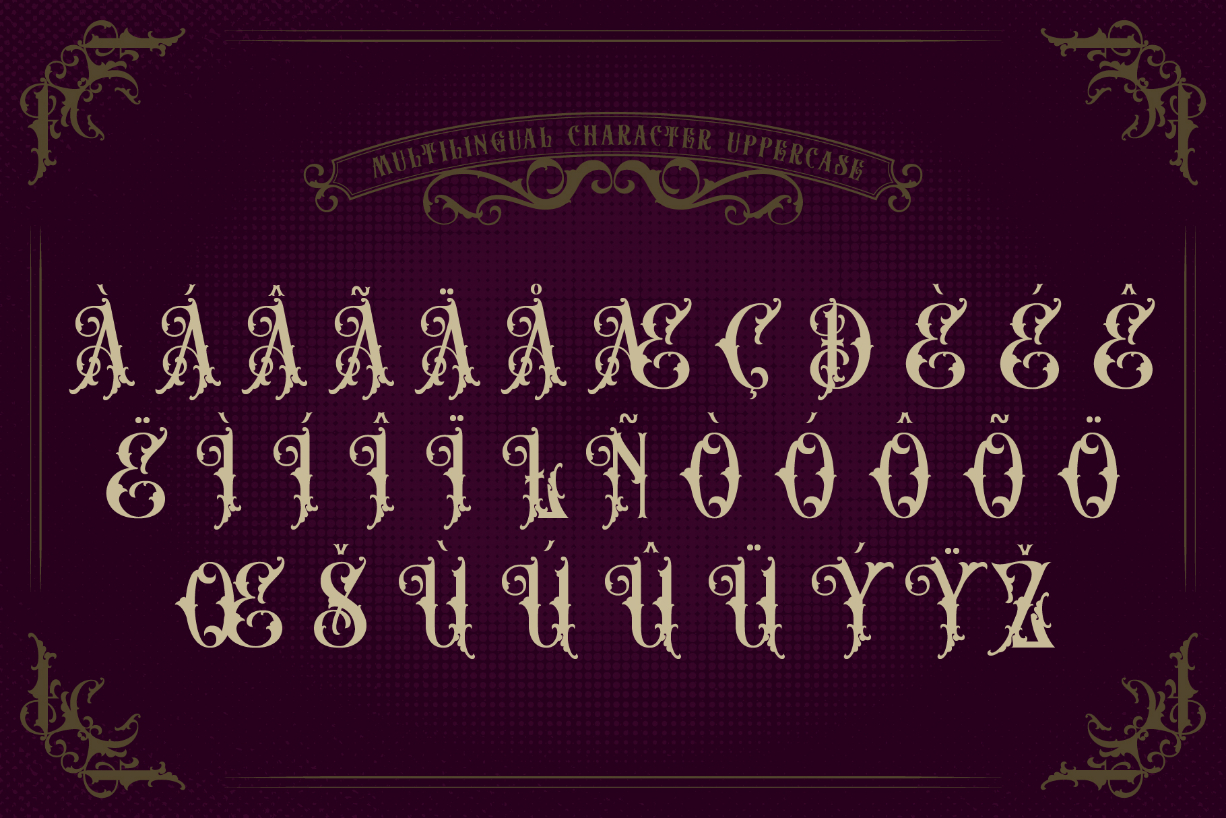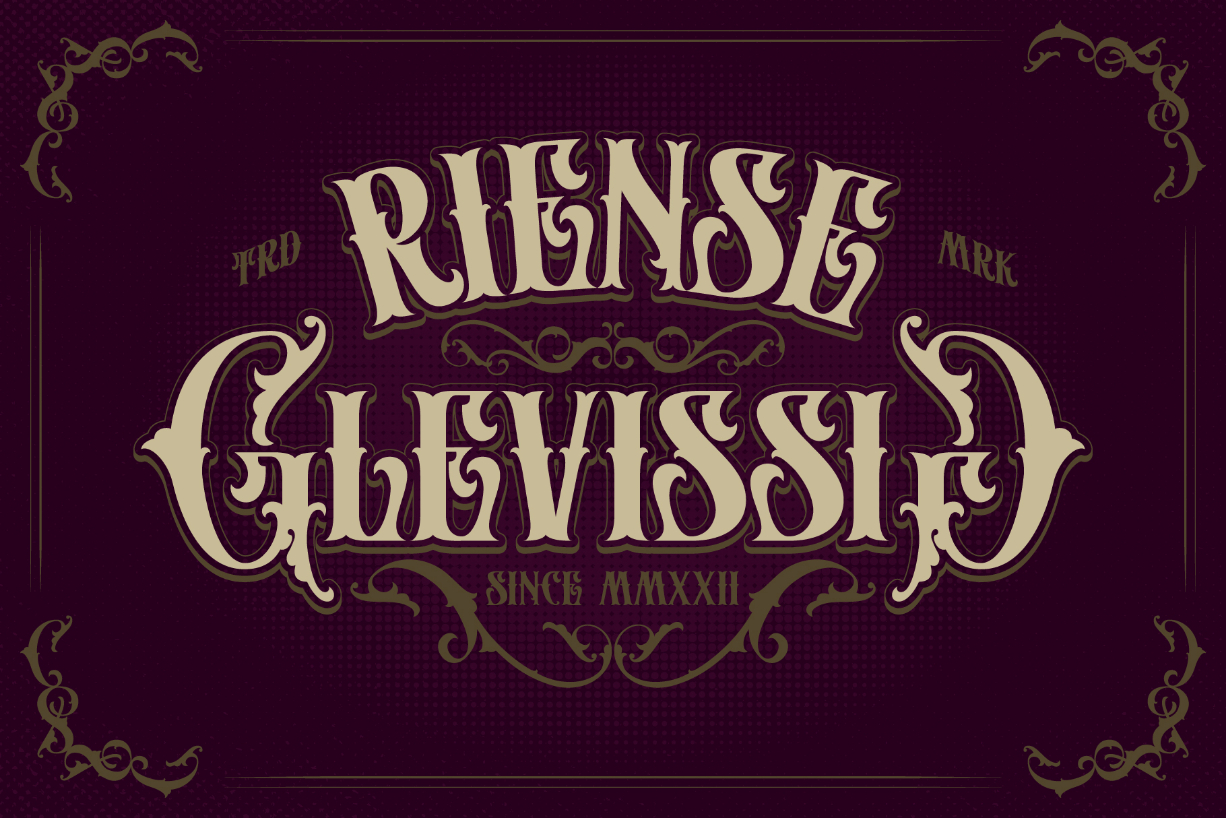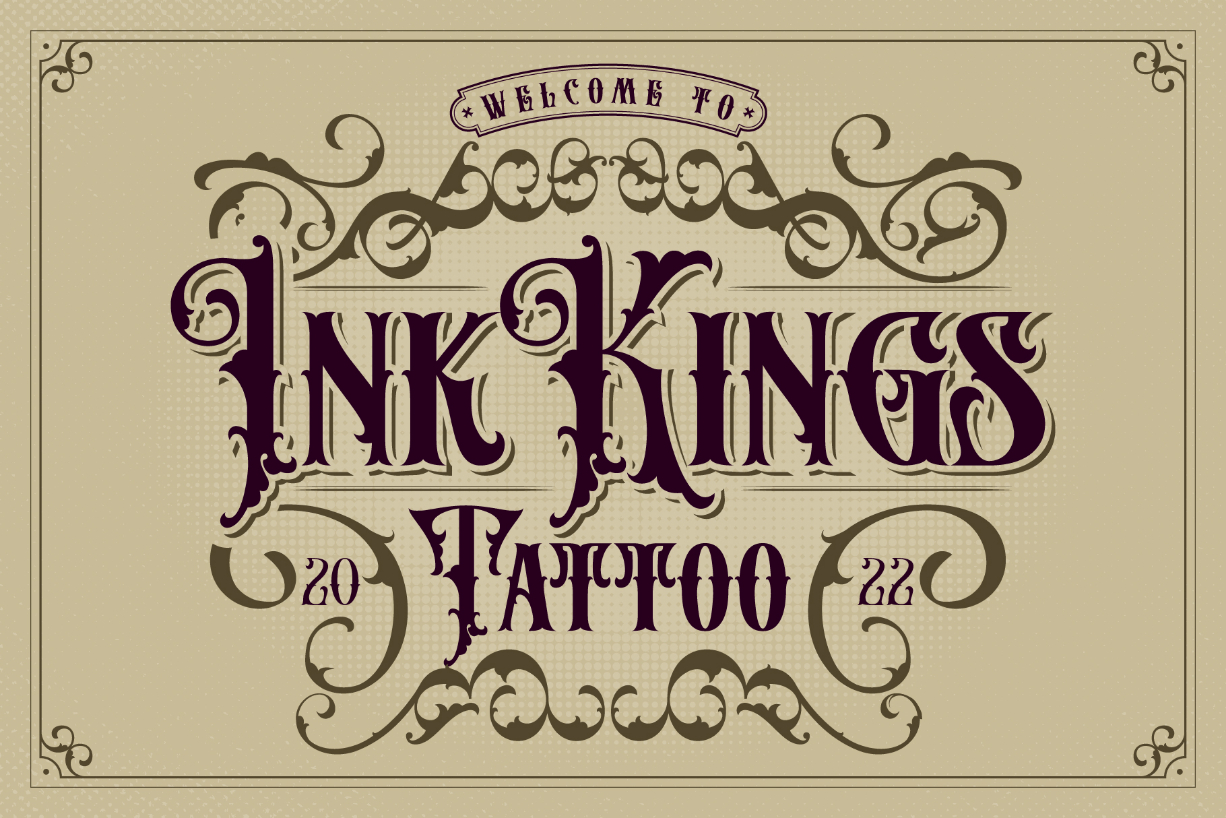
About Birstein Font
Birstein is a cool and vintage blackletter font, featuring a victorian style. It is perfect for various retro designs, branding, liquor labels and brands.